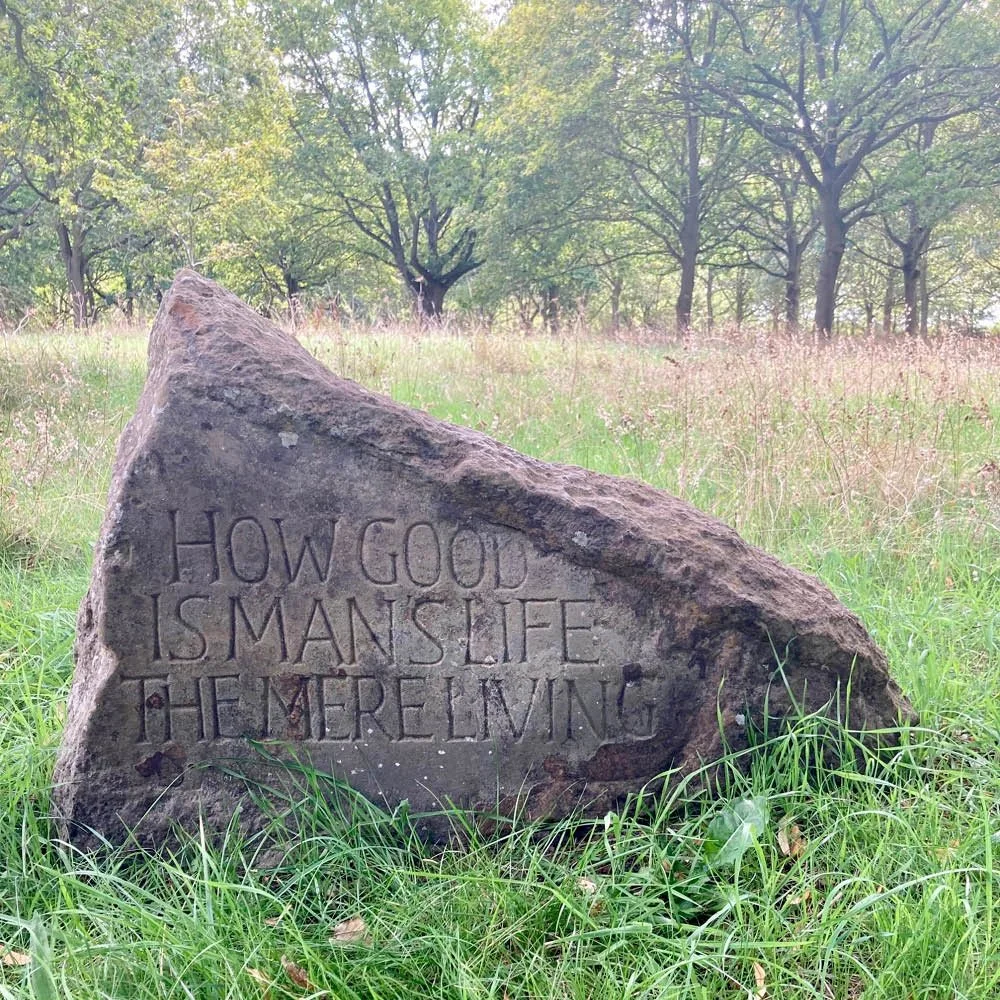
How Good Is Man’s Life The Mere Living by Ralph Beyer
Ralph Beyer (1921-2008) was commissioned to make this piece in the late 1980s by Jill and John Langford, who chose the text from Robert Browning’s poem ‘Saul’. The Langfords were family friends of the Beyers and lived in Nottinghamshire. Jill Langford later donated it to the Lettering Arts Trust, and it was displayed for a while outside the gallery at Snape, Suffolk, before coming to Grimsthorpe, a mere forty miles from its original home.
Ralph was a pupil of Eric Gill and an influential letter carver. In the early 1960s, his lettering for the new Coventry Cathedral broke with the formality of most inscriptional work of the time.